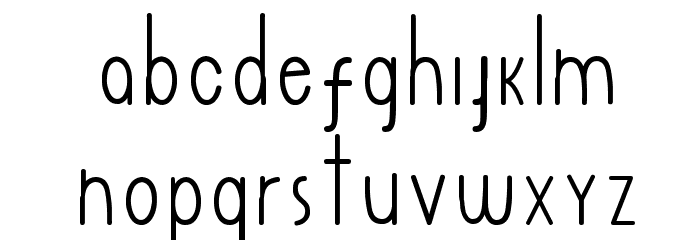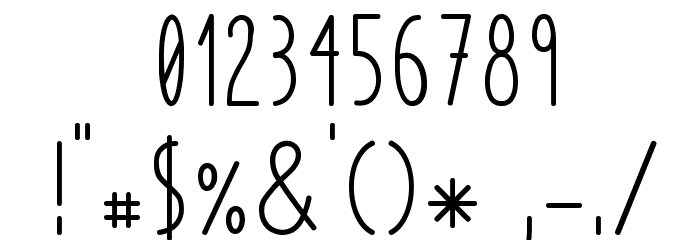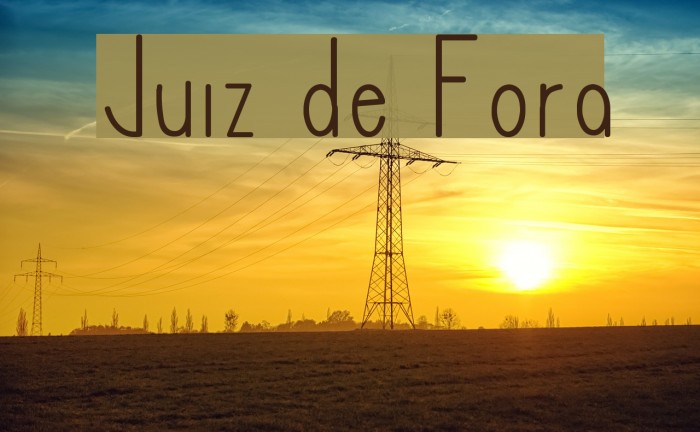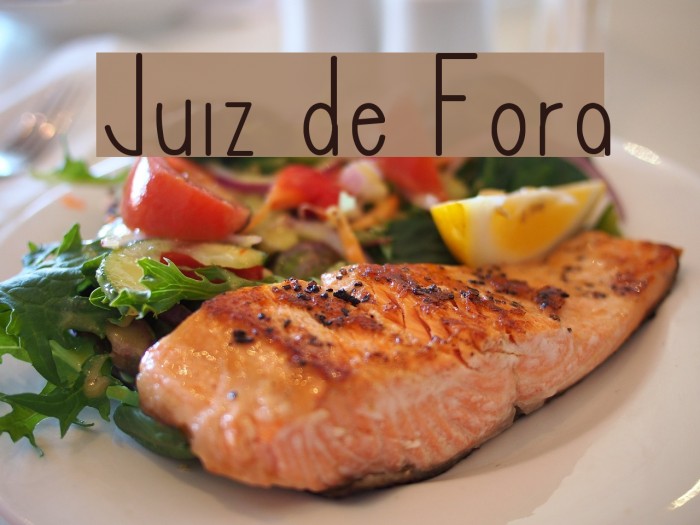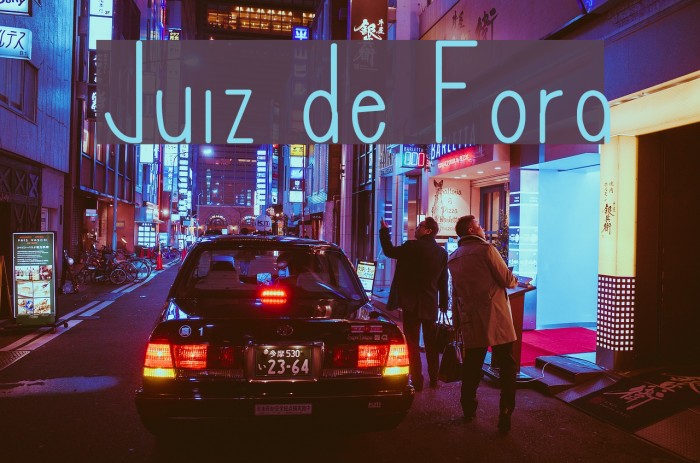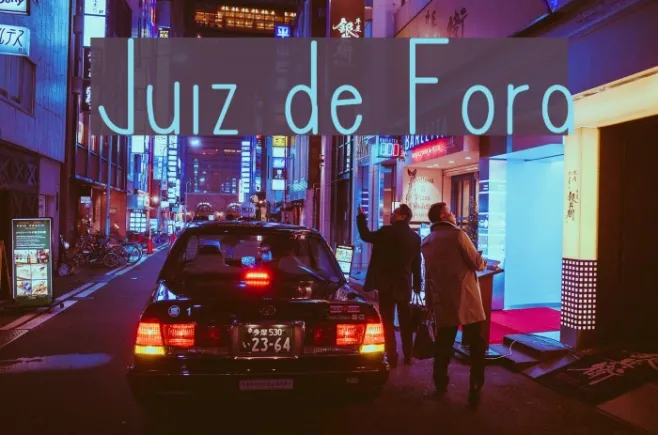
Juiz de Fora Font
This font features a playful and quirky design with tall, narrow characters that have a hand-drawn feel. The uppercase letters are slightly elongated, giving them a unique and whimsical appearance. The lowercase letters maintain a consistent style, with rounded edges and a casual, friendly look. The numerals are similarly styled, with a uniform height that complements the alphabet. Special characters are creatively integrated, adding to the font's overall charm. This font is ideal for projects that require a touch of personality and creativity.
A playful, hand-drawn font with tall, narrow characters and a whimsical style.
- Proposed Projects: Ideal for children's books, greeting cards, playful branding, and creative posters.
- Overall Style: Playful